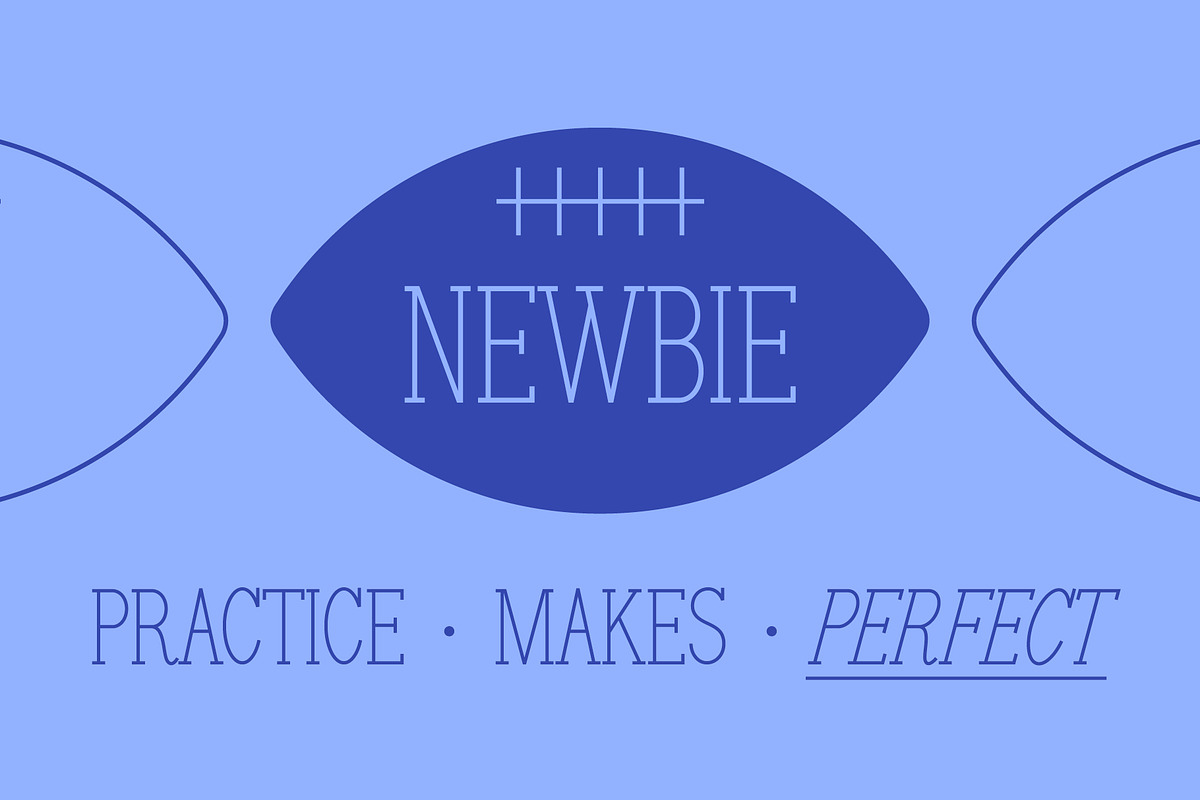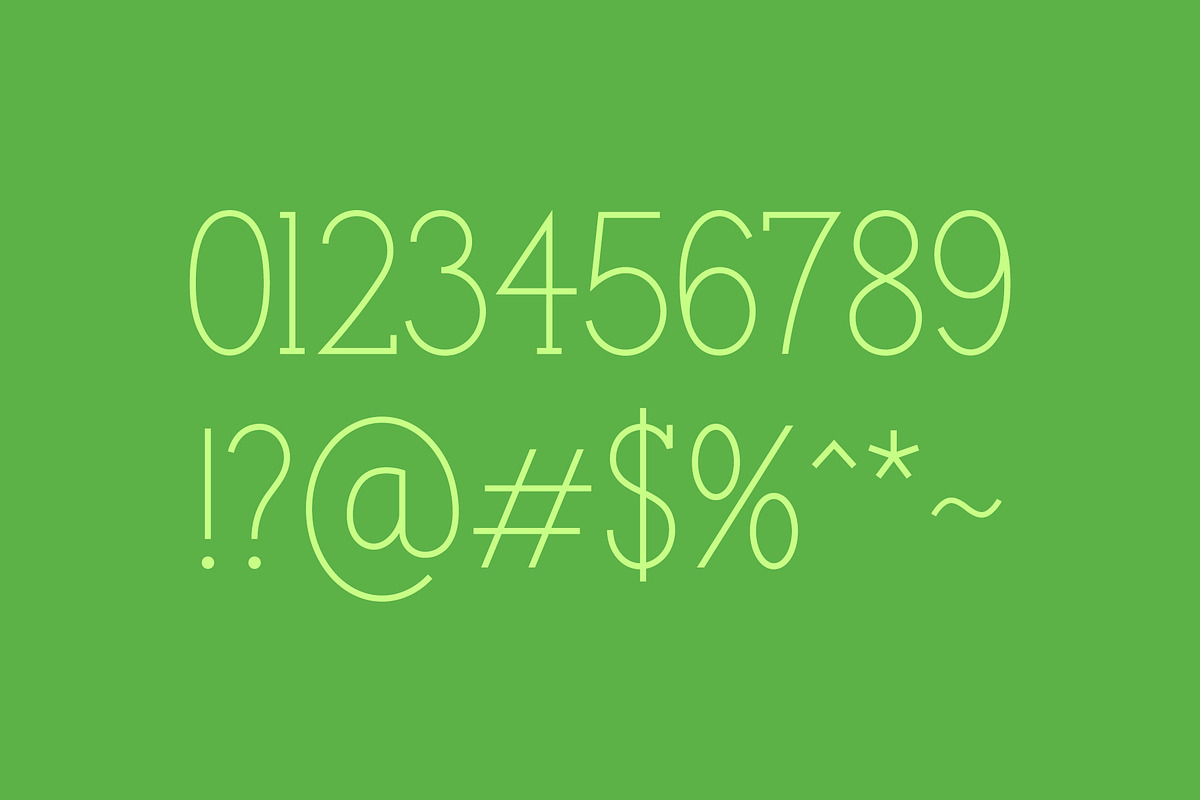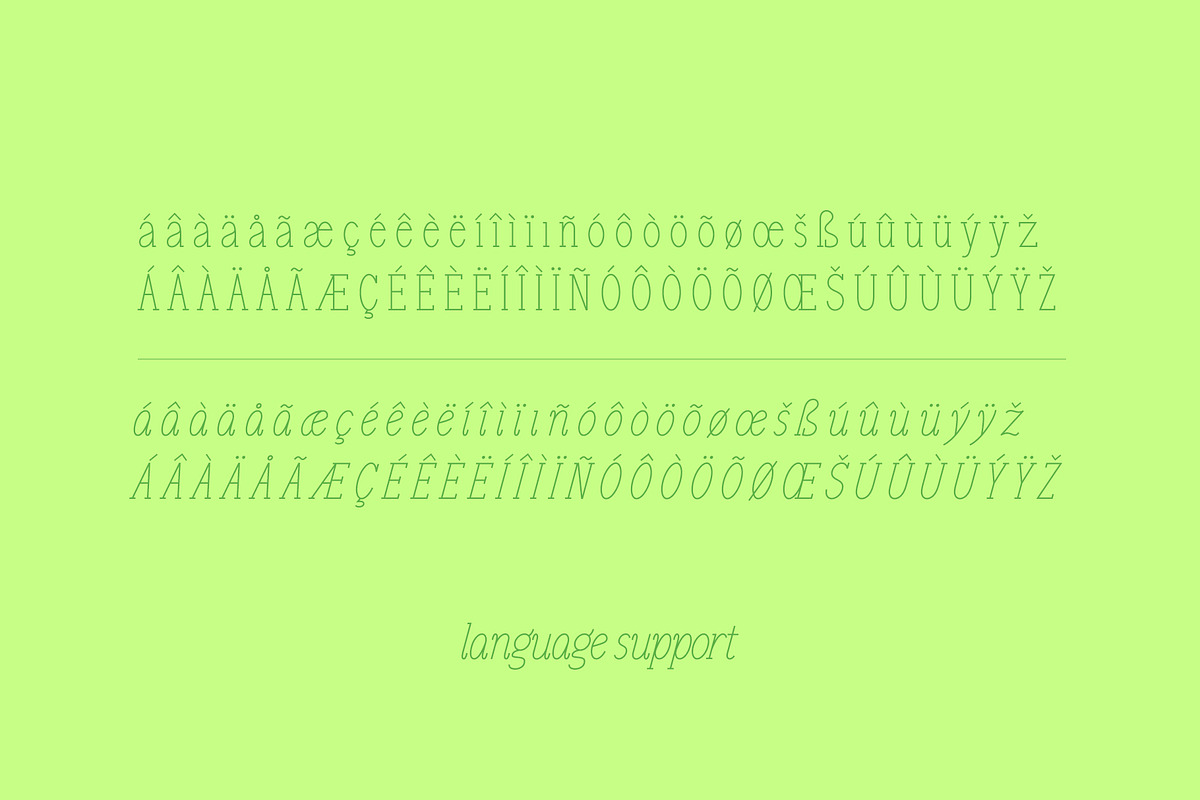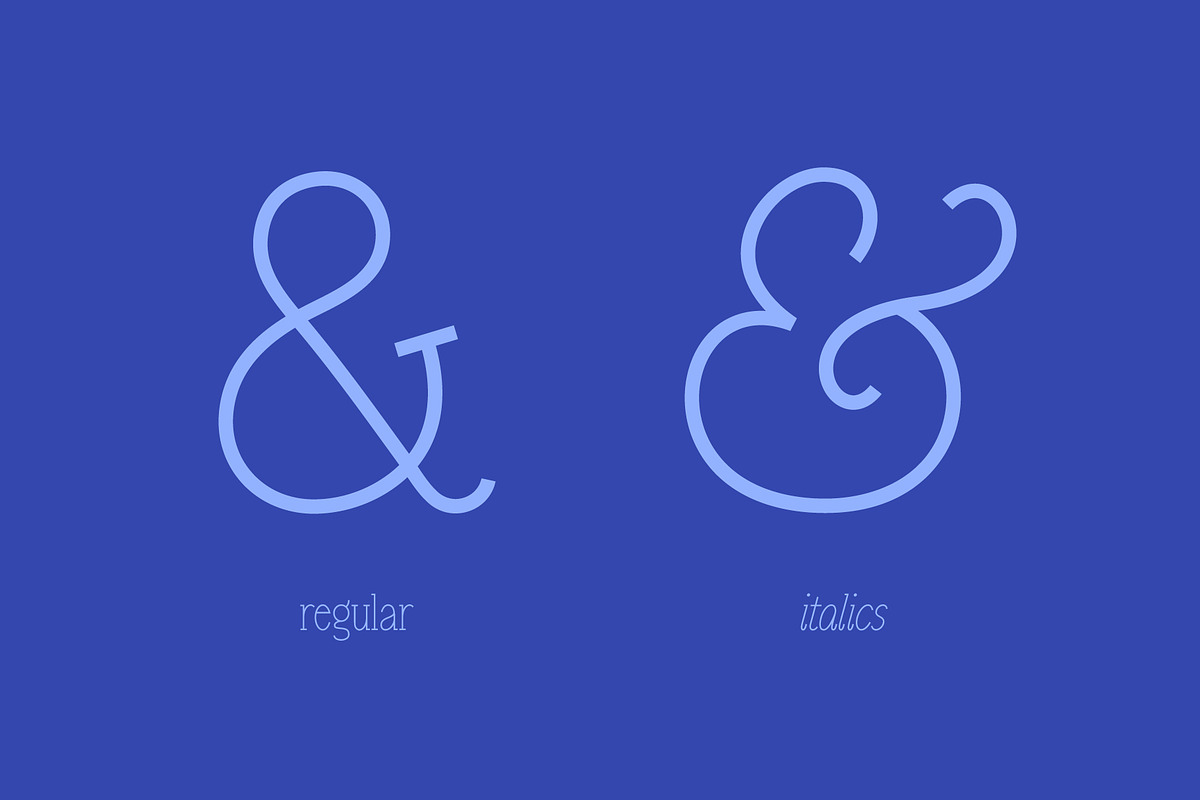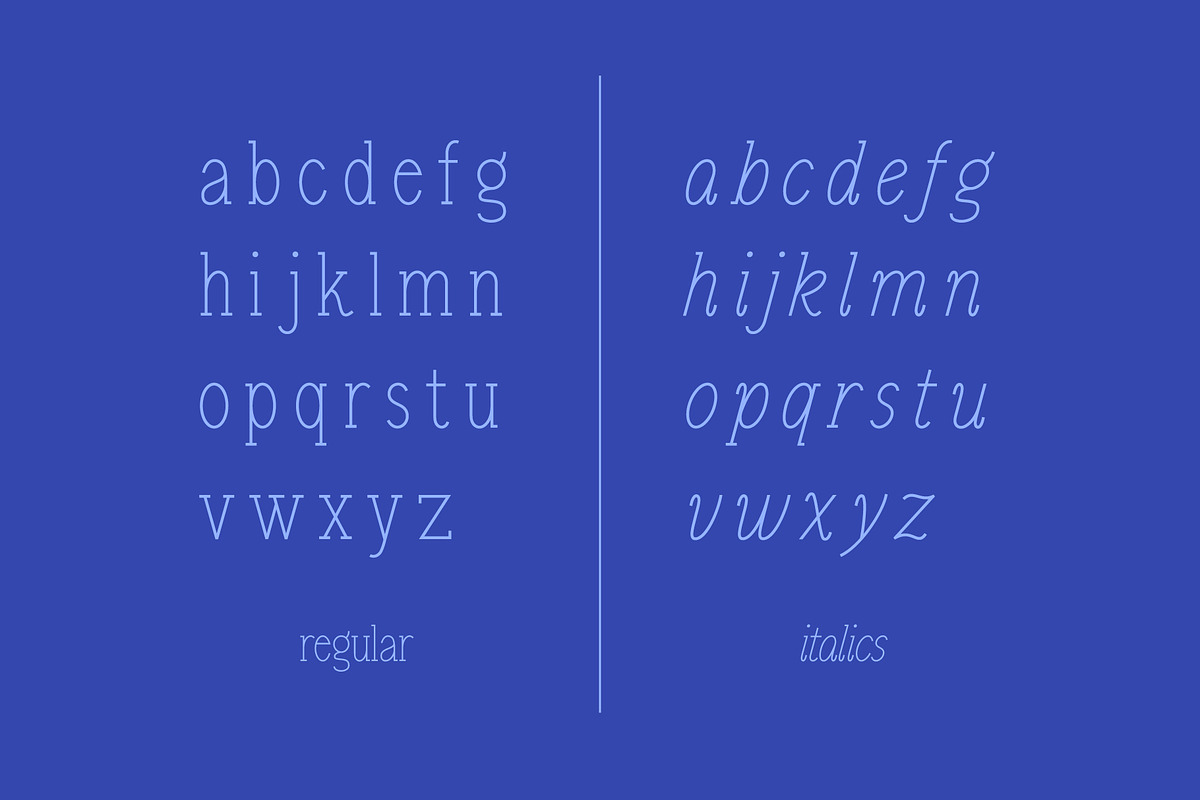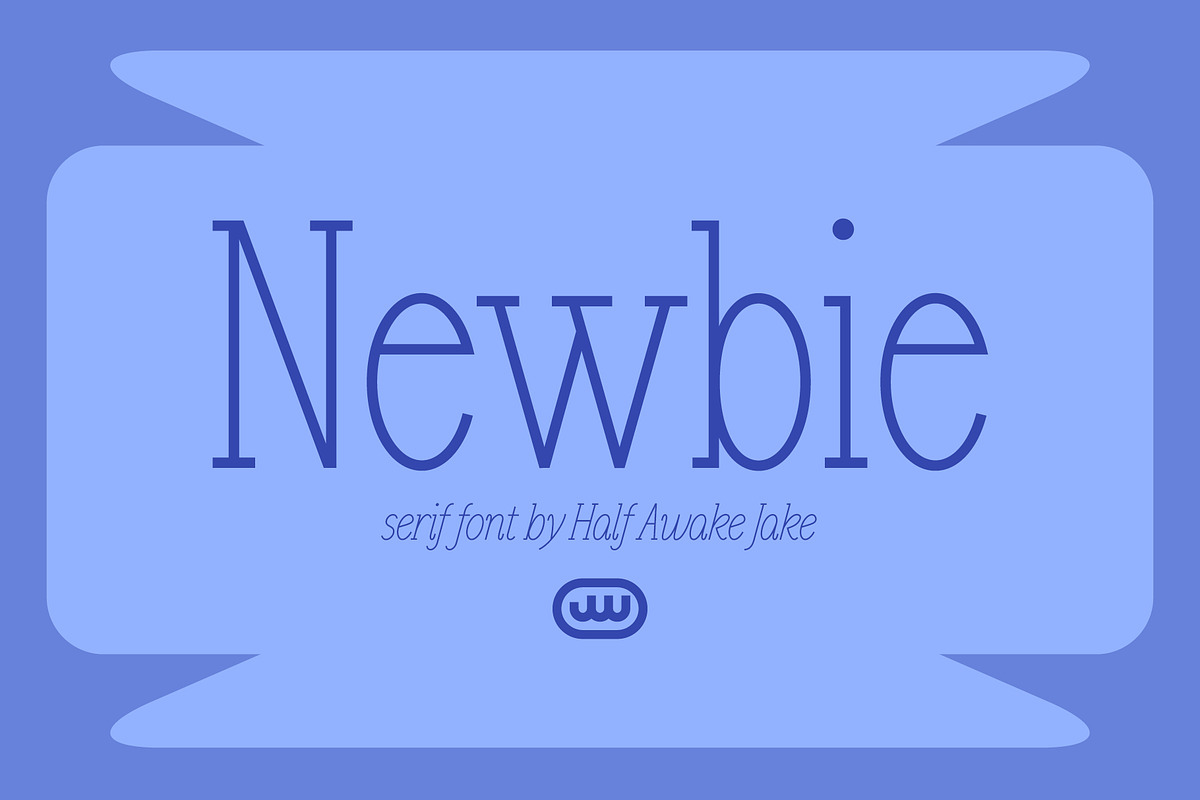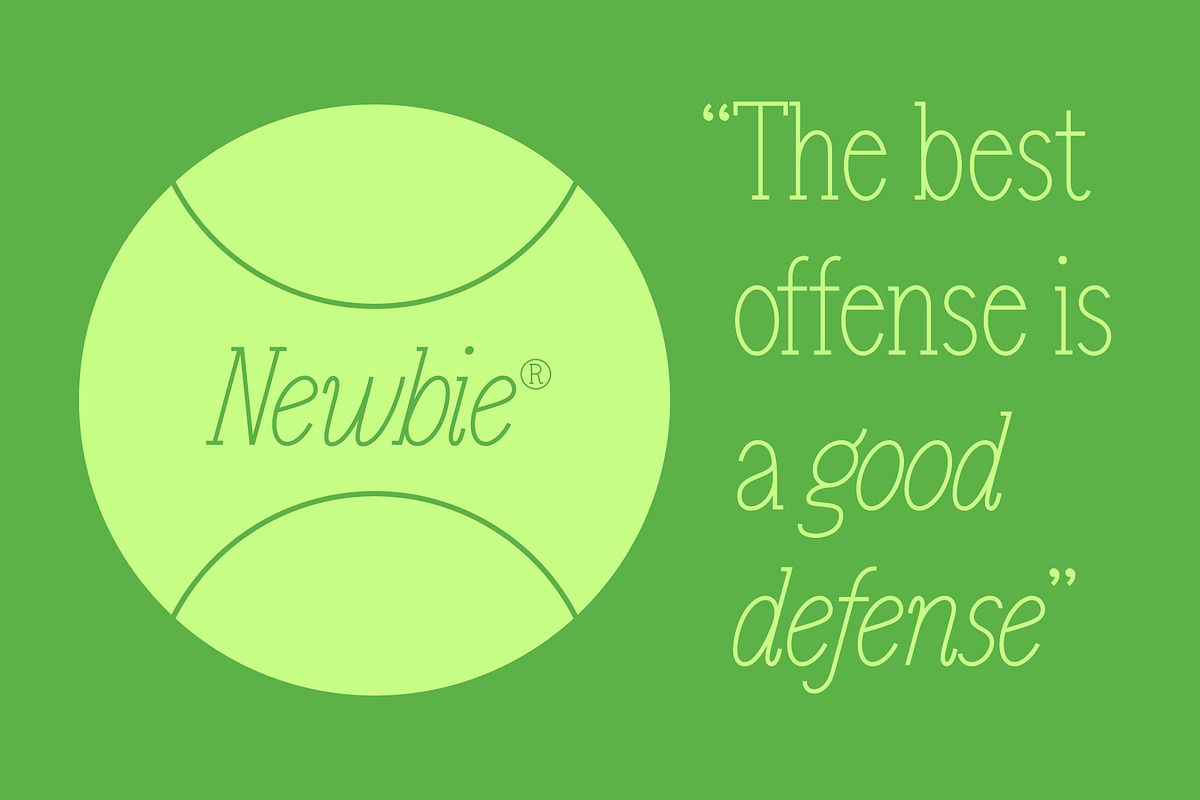
Newbie
Newbie is a modern condensed monoline serif - in both regular and italic styles. Inspired by retro condensed serifs, Newbie can be used in both modern or classic designs.